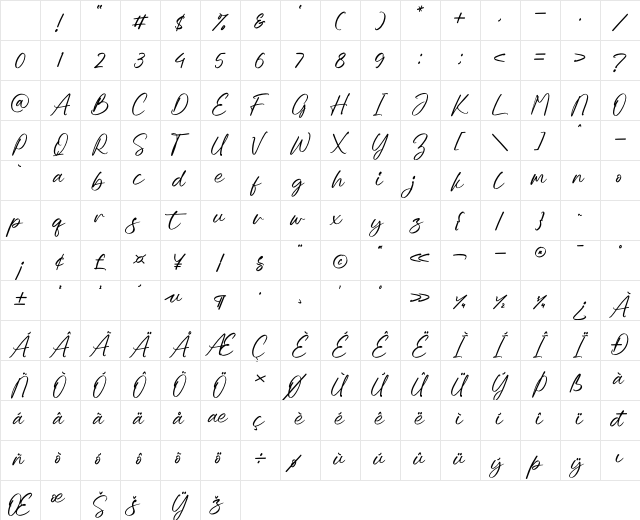
Hallight is a composed and adaptable typeface that performs quietly and consistently across a wide range of design contexts. Its slender proportions lend an understated elegance to any composition.